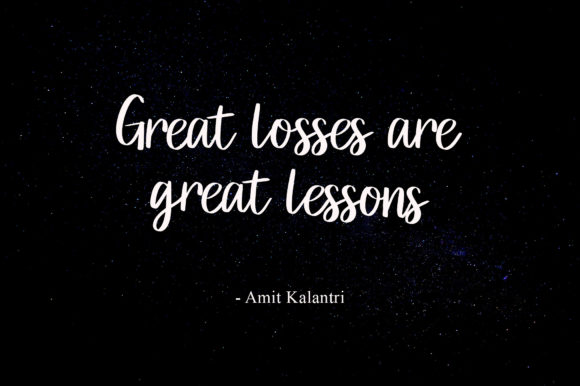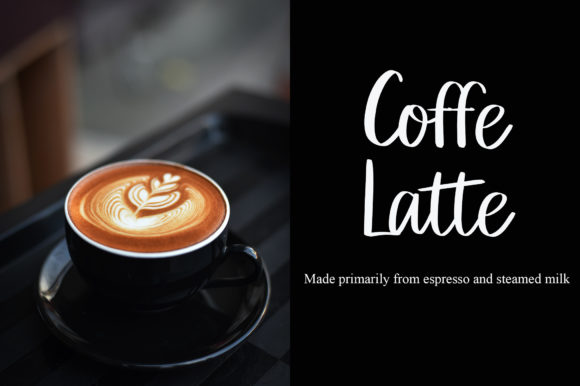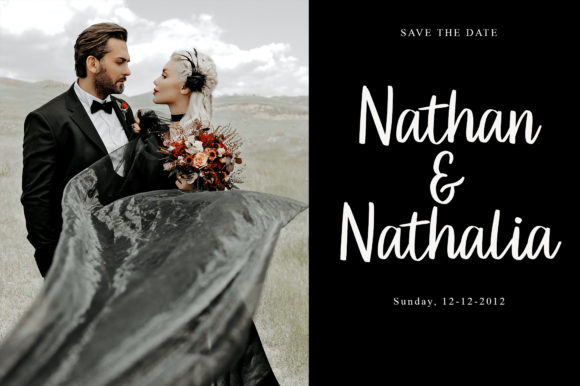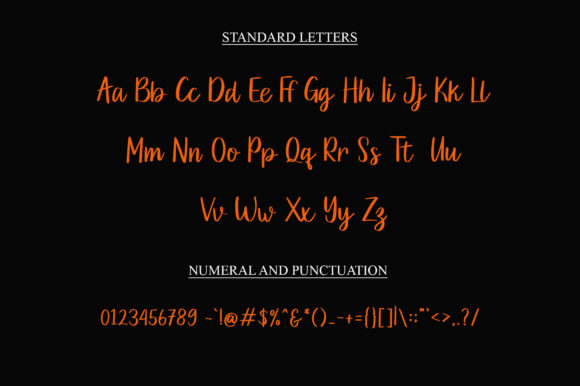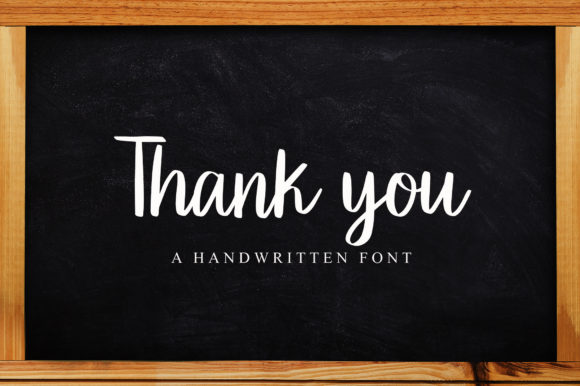
Get Ready to Write Your Way to Success with the Back to School Font
As I sat in my cozy little studio, surrounded by colorful pens and stacks of paper, I couldn’t help but feel a rush of excitement as the new school year approached. The smell of freshly sharpened pencils and the sound of children’s laughter filled the air, and I knew it was time to get creative. And that’s when it hit me – the perfect font to capture the essence of this magical time of year.
Enter the Back to School Font, a delightful script font that embodies the warmth and playfulness of the back to school season. Its beautiful, well-balanced design makes it a wonderful choice for designers looking to add a touch of whimsy to their projects. Whether you’re creating a flyer for a school event or a greeting card for a teacher, the Back to School Font is sure to bring a smile to your audience’s faces.
Key Features of “Back to School Font”
- Unique Characteristics: The font features a playful, handwritten style with subtle imperfections, giving it a friendly and approachable feel.
- Character Set: The font includes a comprehensive character set, including Latin, Greek, and Cyrillic scripts, as well as a range of punctuation and special characters.
- Kerning and Ligatures: The font includes advanced kerning and ligature pairs, ensuring that text sets are rendered with precision and elegance.
Designer Review: Back to School Font
- Unique and playful vibe that captures the essence of the “back to school” theme
- Good for creating eye-catching headings and titles in educational content
- Relatively easy to read, even in smaller font sizes
- Can be a bit too cursive and scripty for some designs, especially those with a more modern or minimalist aesthetic
- Not ideal for body text, as it can be quite difficult to read in large blocks of text
- Not as versatile as some other fonts, making it less suitable for a wide range of design projects
Overall, I think the Back to School Font is a fun and quirky addition to any designer’s toolkit. While it may not be the best choice for every project, it’s definitely worth considering for those that require a playful, educational vibe.
Use the Back to School font to create eye-catching headings and titles for your designs. Experiment with different font sizes and styles to create visual interest. You can also use it to add a playful touch to your designs.
The Back to School font is perfect for creating designs related to education, summer camps, and kids’ activities. It can be used for creating posters, flyers, and social media graphics for these types of events.
Alternatives to “Back to School Font” for Designers
Comic Sans
Comic Sans is a casual, cursive font often used for informal purposes. It is ideal for creating a friendly and approachable tone, but should be used sparingly due to its controversy and perceived lack of professionalism.
Compared to Back to School Font, Comic Sans is more informal and less focused on education. It is a better choice for general communication and social media, but may not be suitable for academic or professional contexts.
Playfair Display is an elegant, high-end serif font often used for luxury brands and high-end publications. It is ideal for creating a sophisticated and refined tone, making it suitable for academic and professional contexts.
Compared to Back to School Font, Playfair Display is more formal and sophisticated. It is a better choice for academic and professional contexts where a high level of professionalism is required.